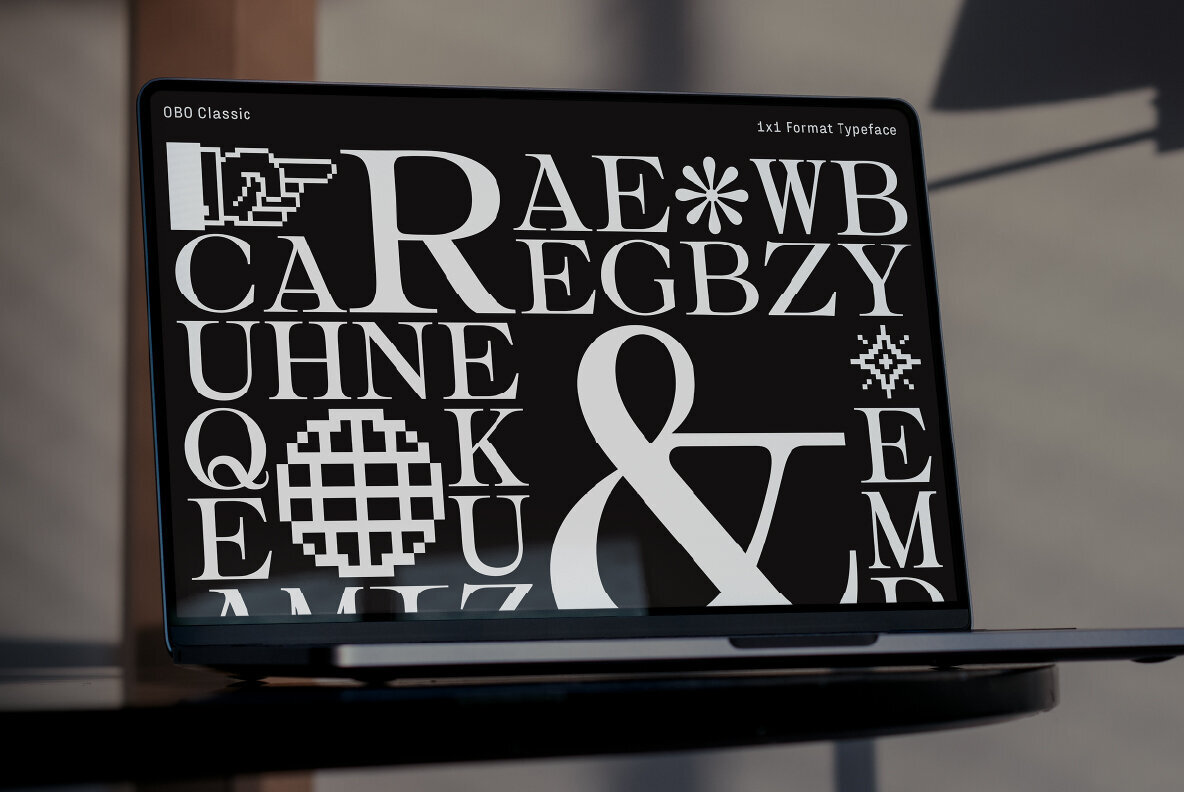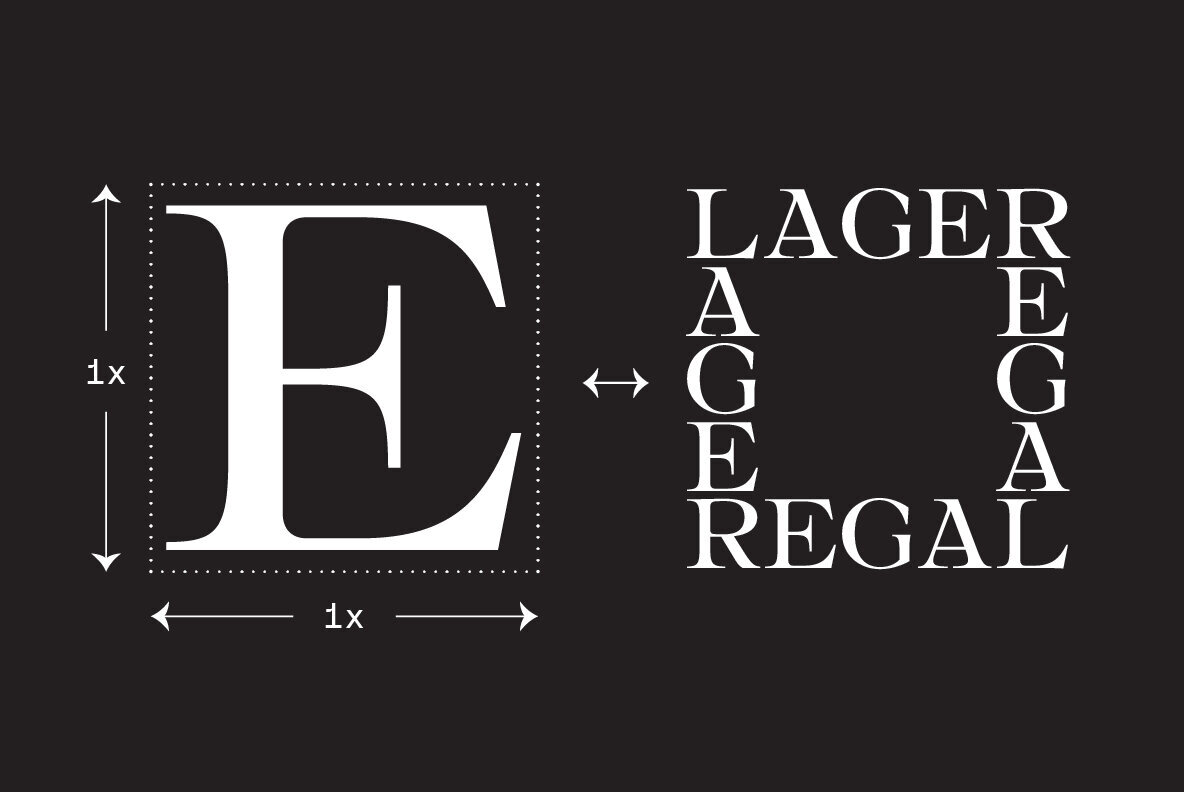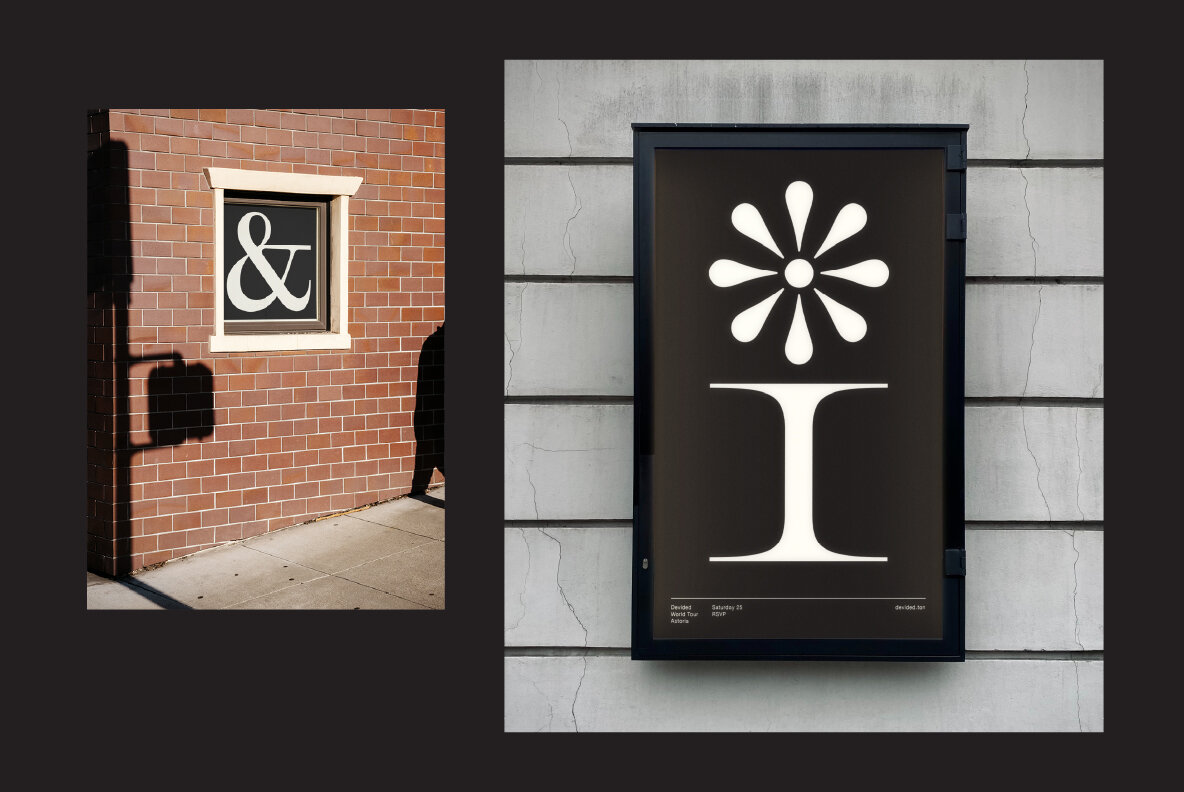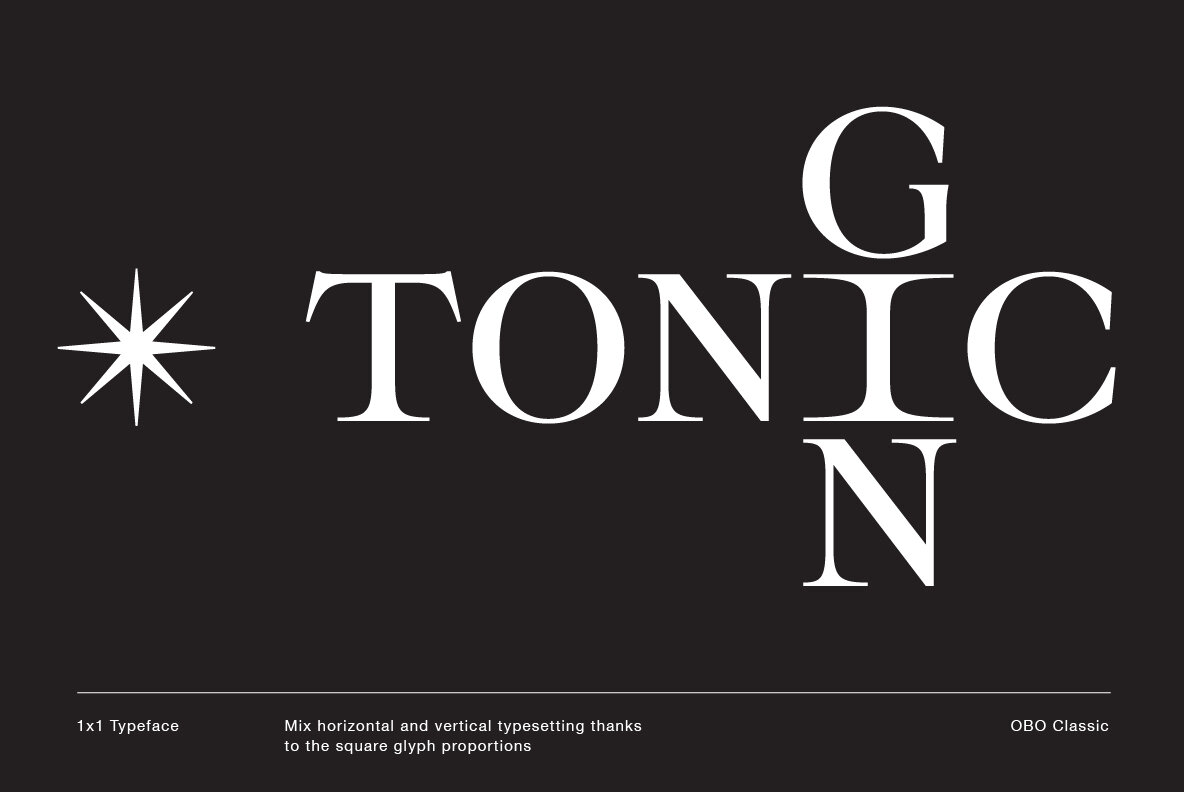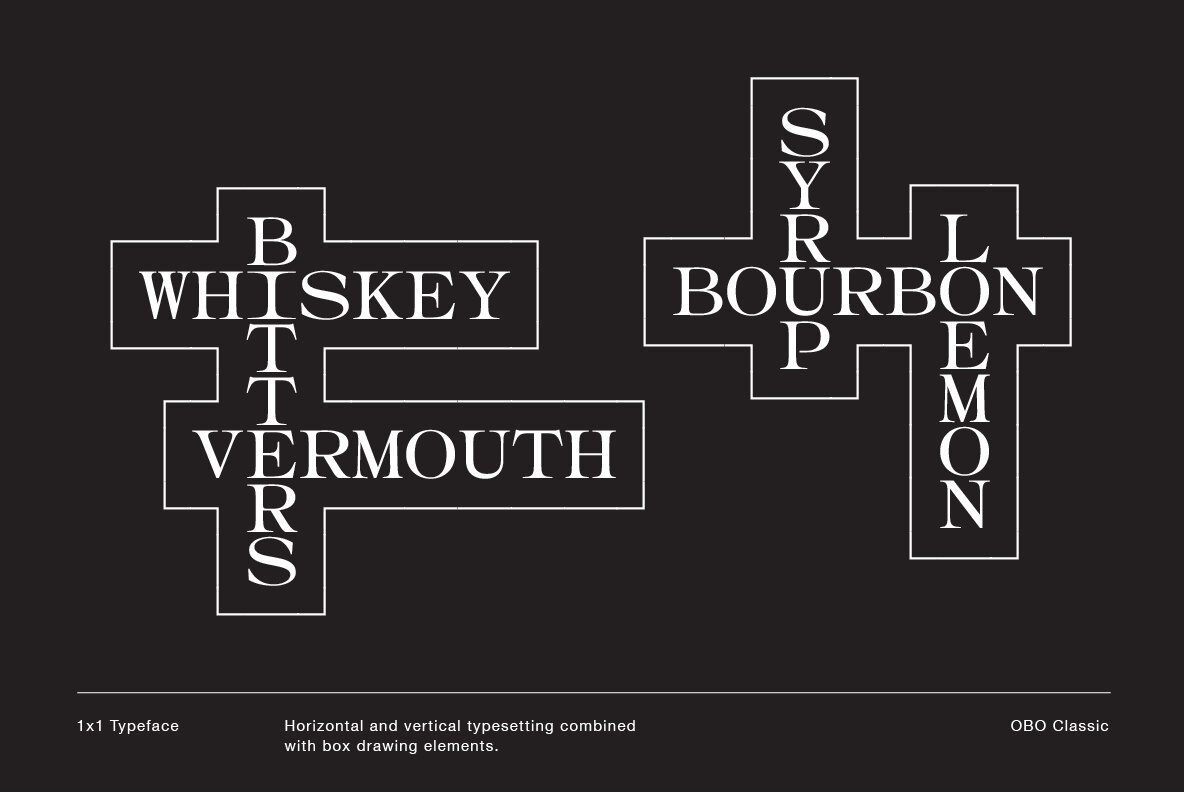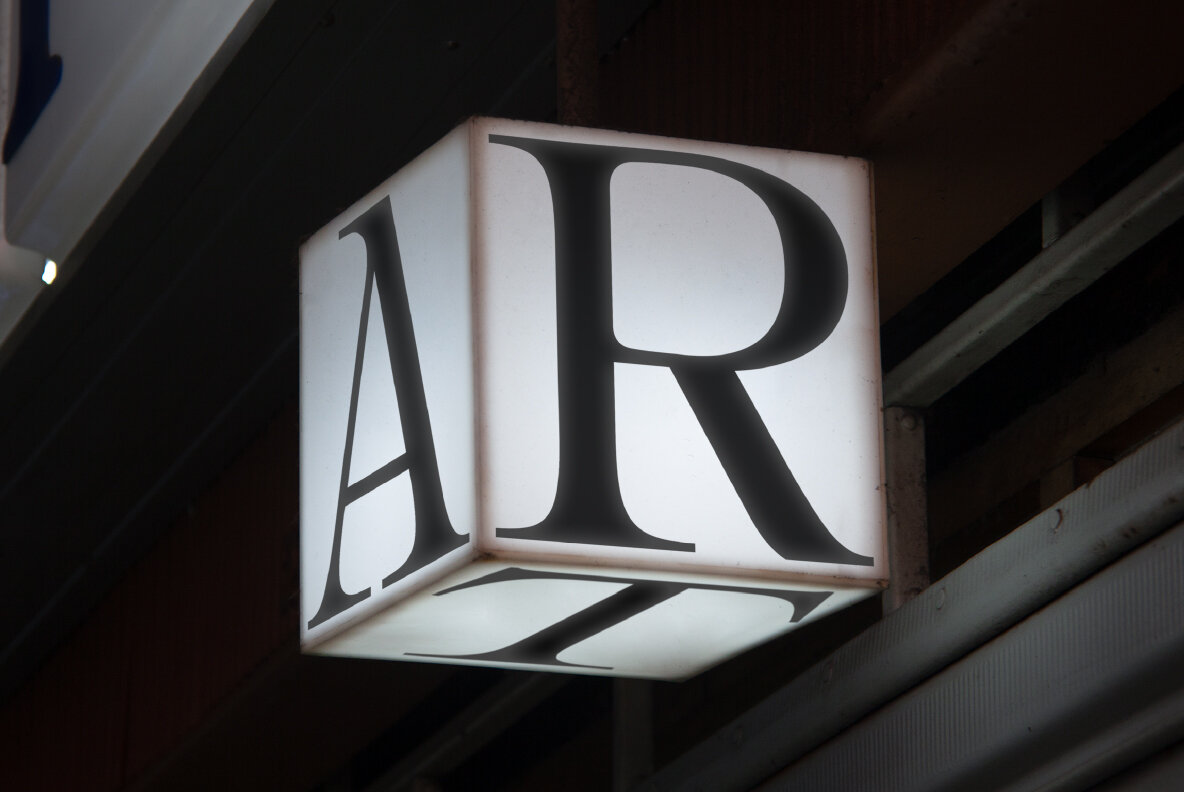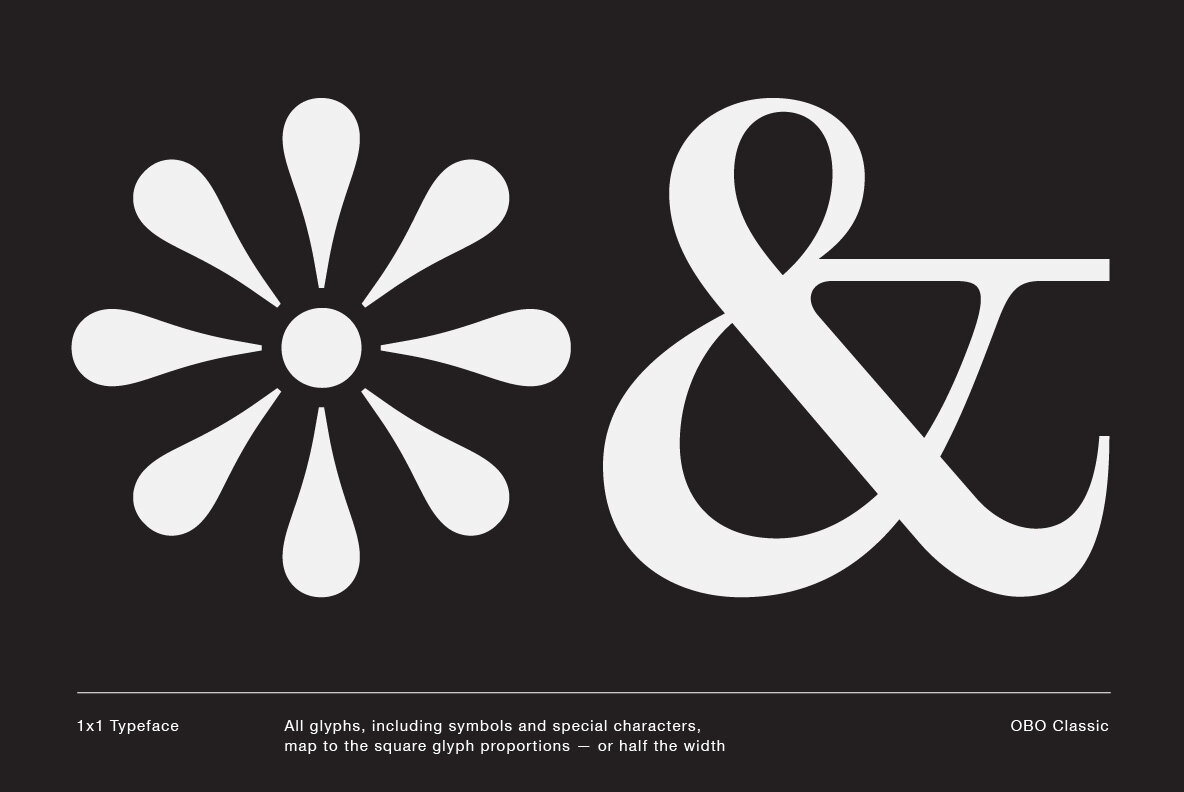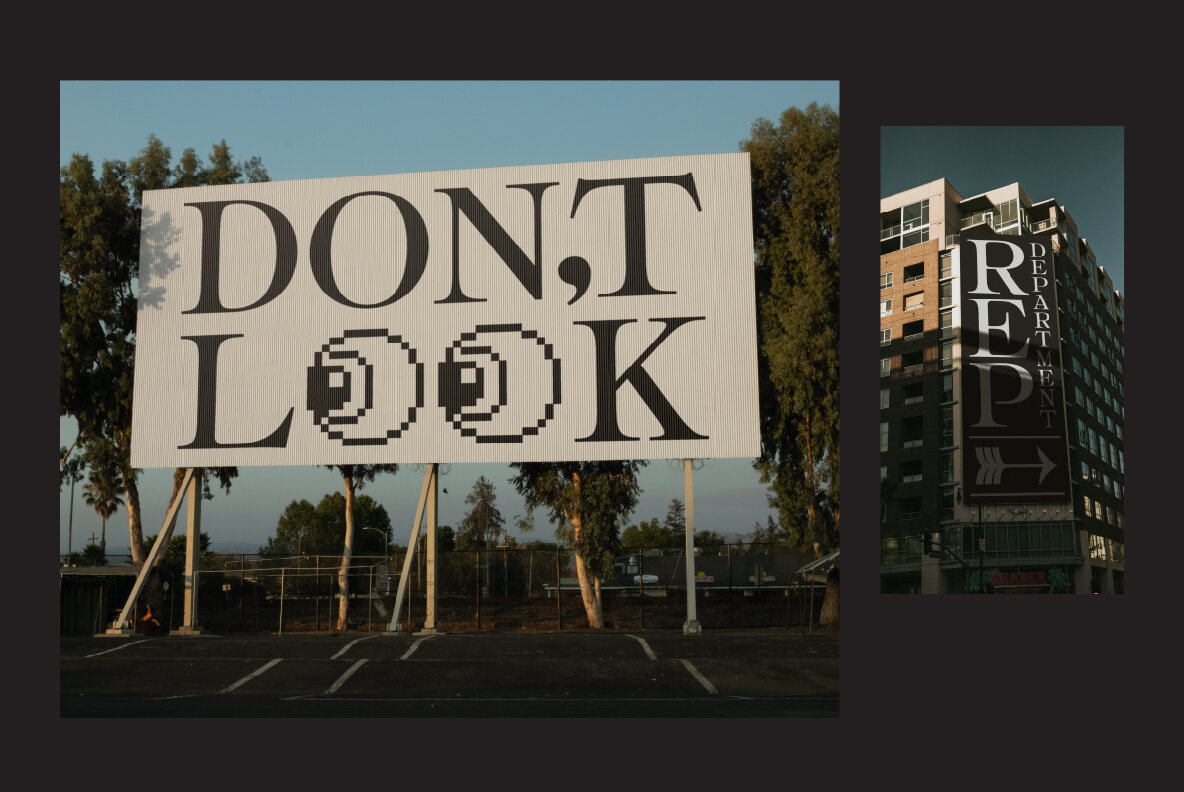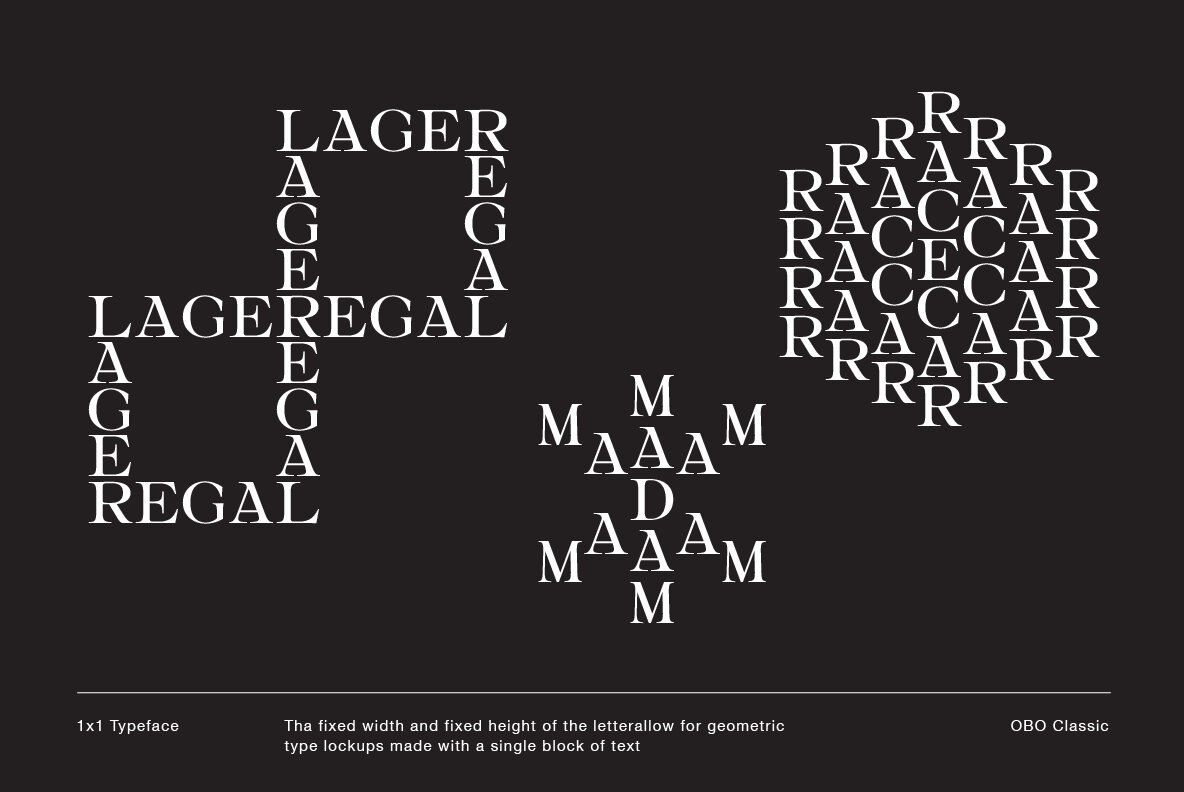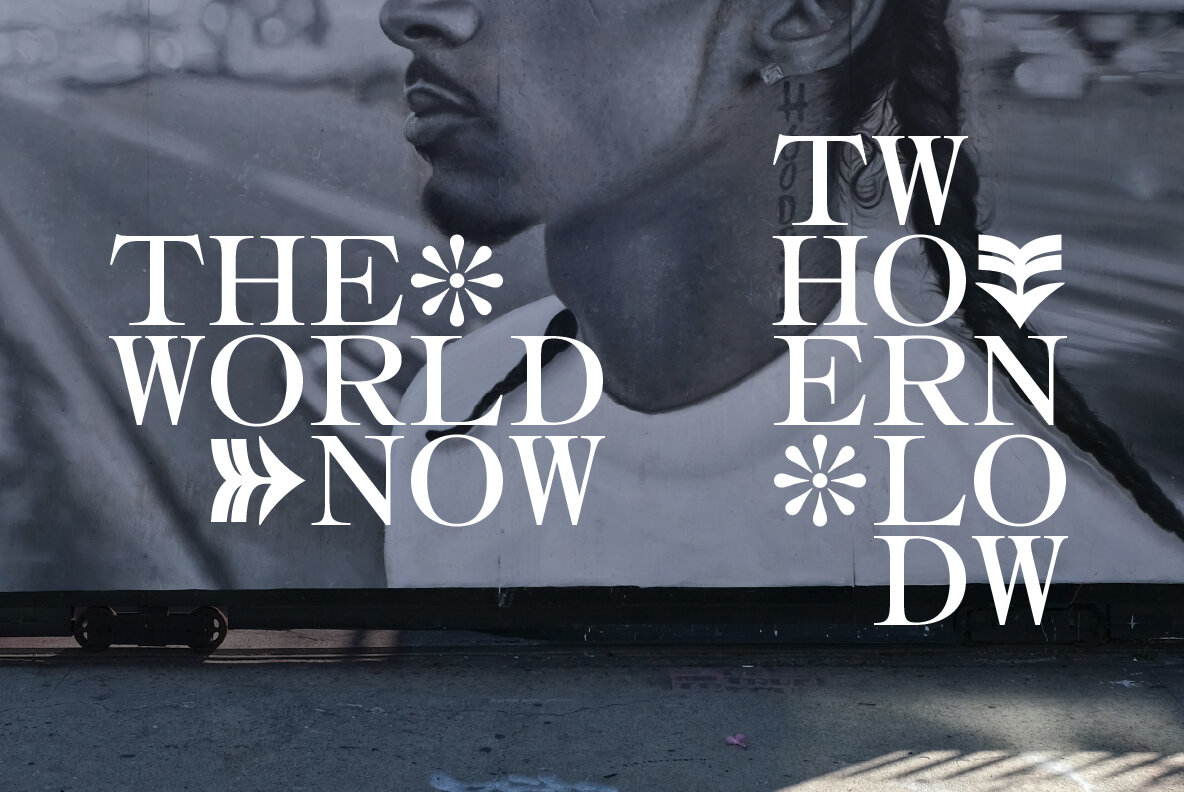
OBO Classic
OBO Classic is the second installment of the OBO series, a type collection based on a square. Every character is mapped on a 1x1 ratio which allows for horizontal and vertical settings alike. Or mixed, like crosswords.
OBO Classic is a display interpretation of a traditional Old-style Serif. The “distortion” which maps each character to a square creates unusual proportions to what we are used to from classic serif typefaces. The result is a monospaced font. While each individual letter feels conventional on its own, when brought together in words the result feels contemporary. Thanks to the square base vertical and horizontal – and mixed – settings are possible and easy to apply.
There are a few exceptions for certain punctuation and special characters that are half the width for better spacing; and the word space’s width can easily be adjusted through OpenType stylistic sets. Talking about spacing, for strictly horizontal typesetting there is the option to turn on kerning for a number of characters to create a cleaner texture across words and phrases.
OBO Classic is best set in large sizes and is most comfortable in editorial and display settings. A series of icons complete the character set. A selection comes as pixel graphics which adds further contrast to the traditional legacy of the typeface.